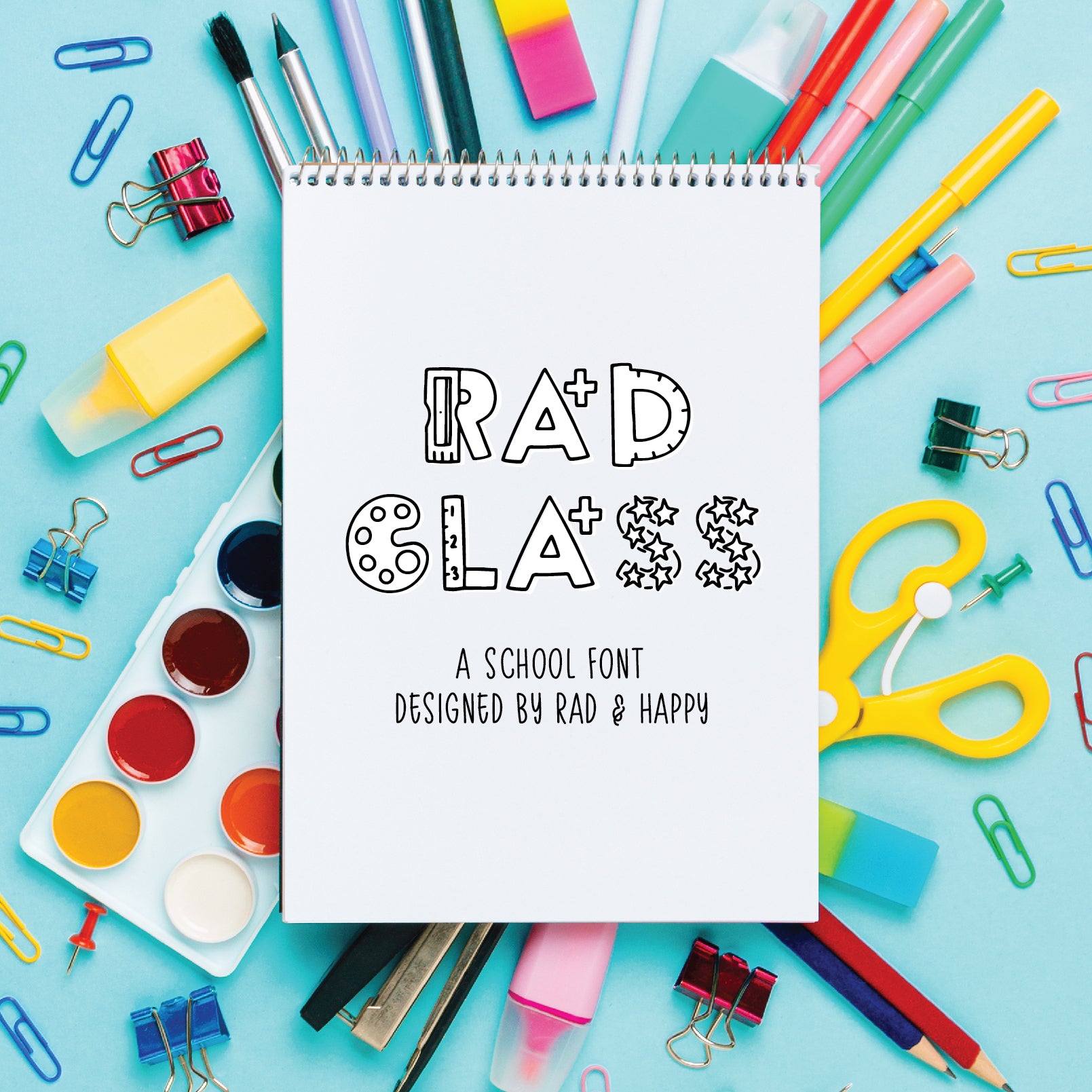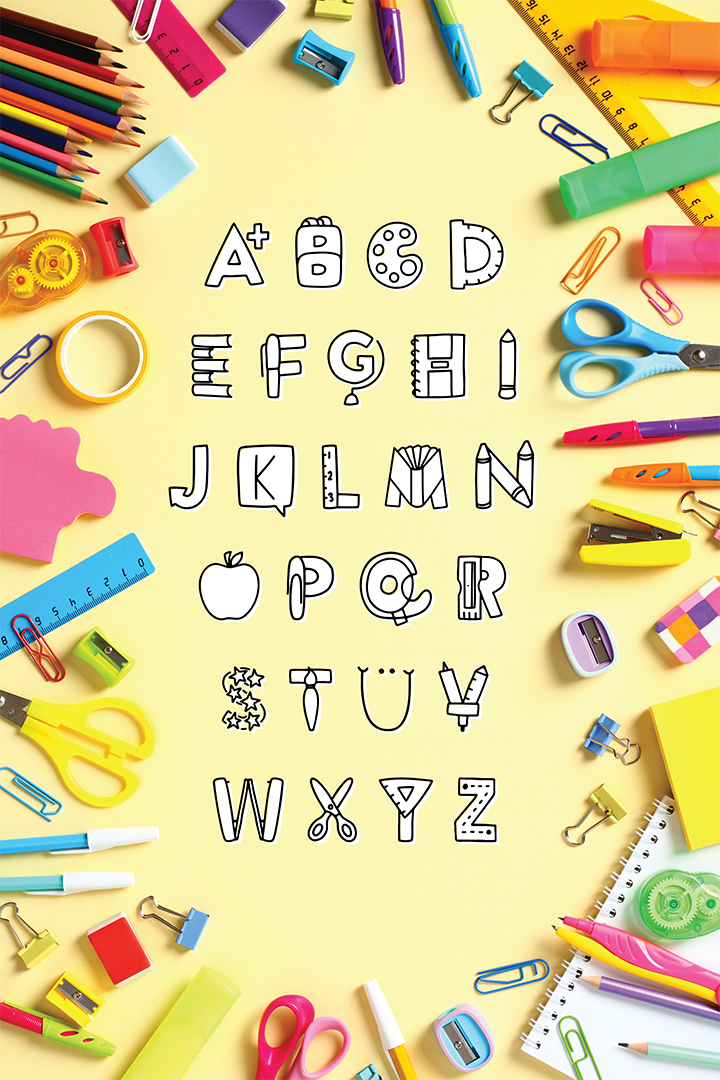
Rad Class Font
The Rad & Happy Classroom Font is a playful font designed for school projects like lunch box notes and coloring pages, available with a personal license and compatible with any device.
Guess what, friend—I’ve got a super fun Rad & Happy Classroom Font that’s perfect for all your school projects, and I’m so thrilled to share it with you! It’s ideal for back-to-school lunch box notes, classroom decor, personalized bookmarks, coloring pages, or anything else you can dream up—just click to install it on your computer or send it to an app like Studio by Go Daddy (my fave for adding fonts on your phone).
Why It’s Awesome:
• Made for School – I designed it for all your classroom needs!
• Super Playful – Adds a fun touch to any project.
Seriously, if you want a cute font to make your school projects pop, this is it—I promise it’ll add so much fun. It’s been a blast creating this for you, and I’m so stoked for you to start using it!